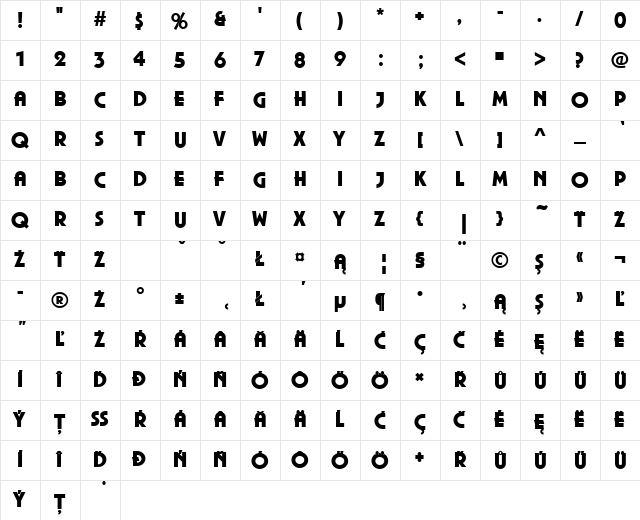
PlazaPEEUlt Regular
Design Context for PlazaPEEUlt Typeface
PlazaPEEUlt is a composed and adaptable typeface that performs quietly and consistently across a wide range of design contexts.